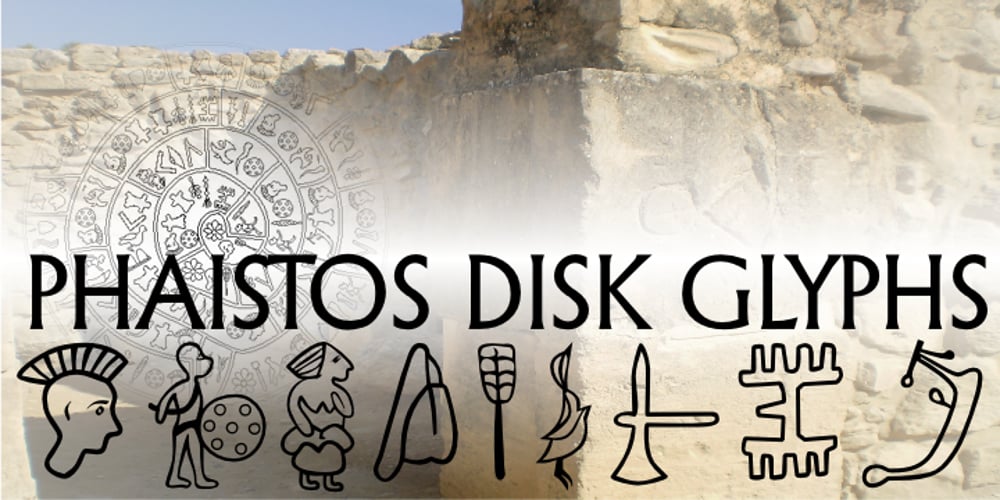
Phaistos Disk Glyphs Font Family was designed by Denise Koehler and published by Deniart Systems. Phaistos Disk Glyphs contains 1 styles and family package options. The Phaistos series contains 47 unique characters based on the cryptichieroglyphic symbols depicted on the infamous Phaistos Disk. Measuring approximately 16cm in diameter, the Phaistos Disk was excavated in 1908 at the Minoan palace at Hagia Triada in Crete. The glyphs have not been conclusively deciphered to this day.